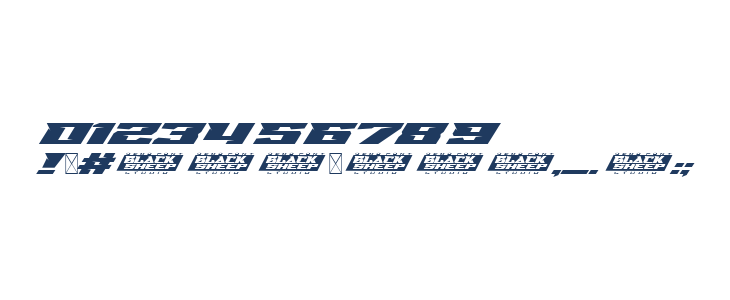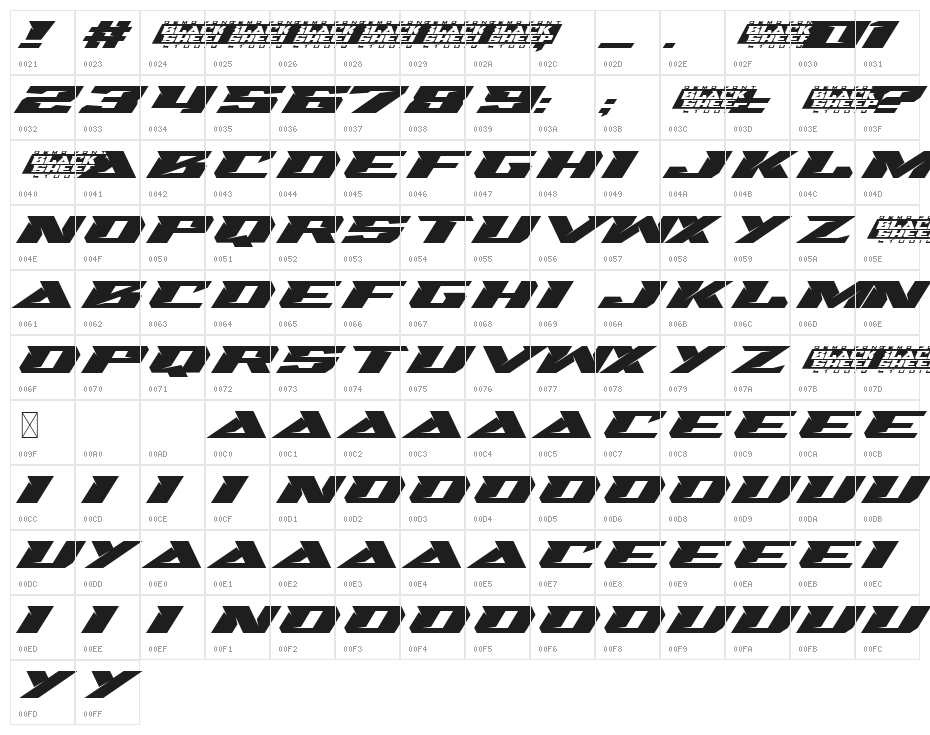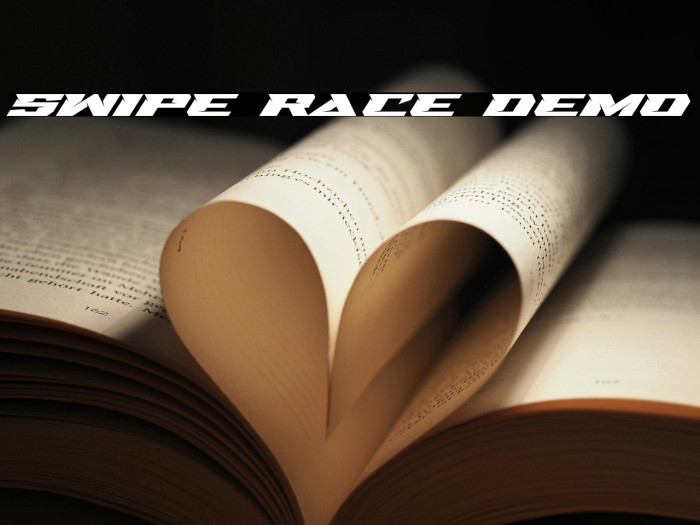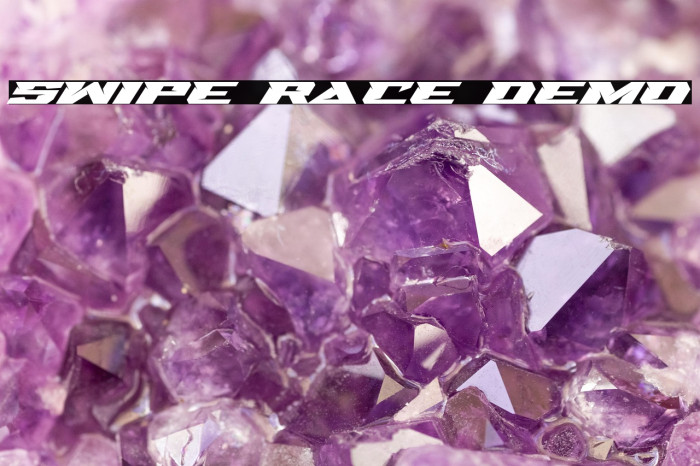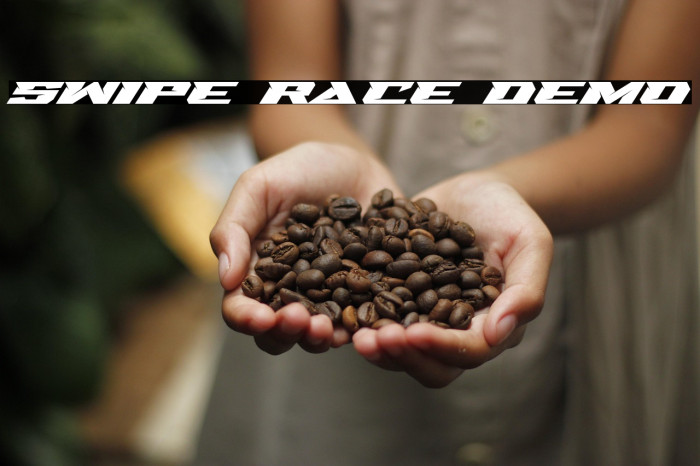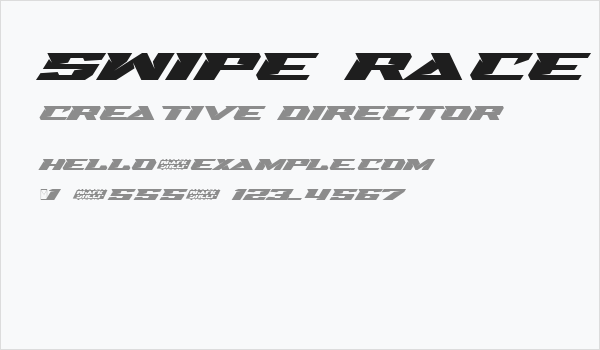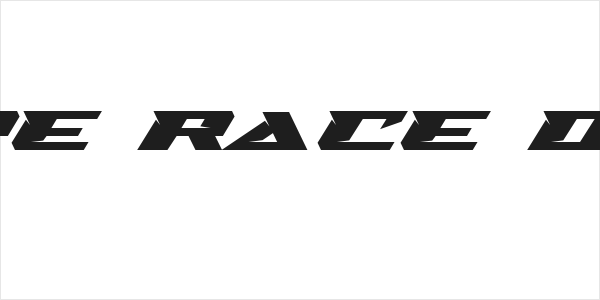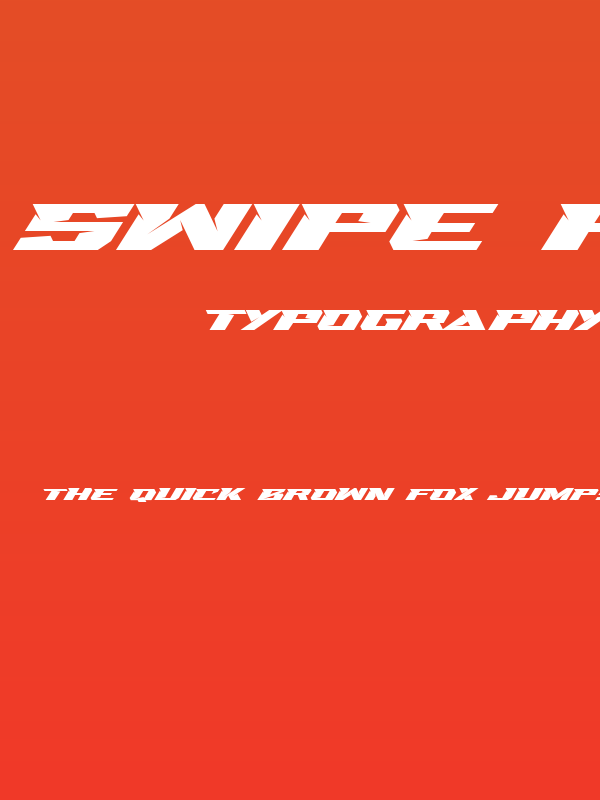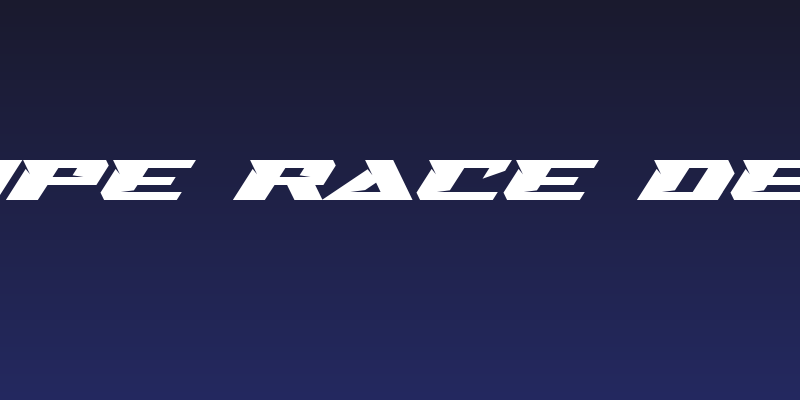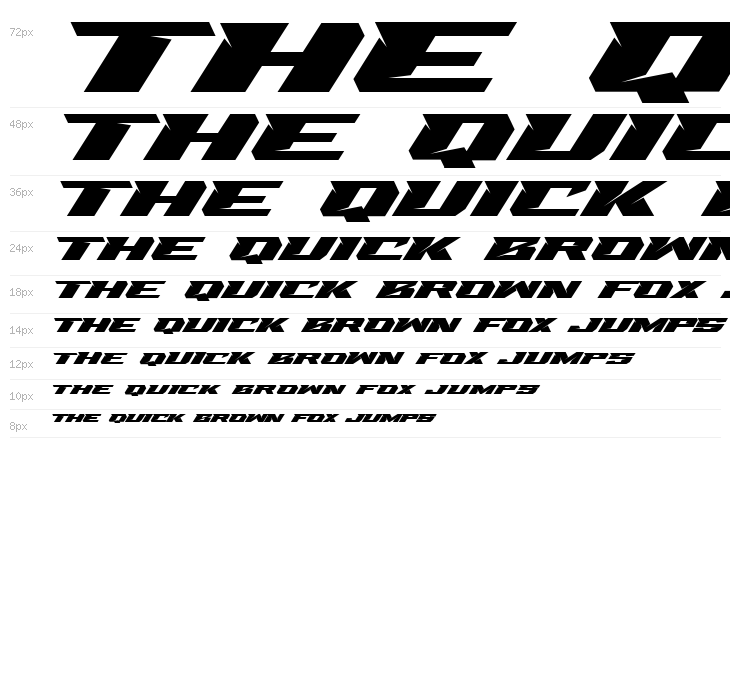
Swipe Race Demo Font
Swipe Race Demo Description
This font features a bold, angular design with a strong emphasis on sharp edges and dynamic lines, reminiscent of speed and movement. The uppercase and lowercase letters maintain a consistent style, with each character exhibiting a slanted, italicized form that enhances the sense of motion. The numbers and special characters follow the same aesthetic, ensuring uniformity across all elements. The font's aggressive and modern appearance makes it ideal for projects that require a sense of energy and action, such as racing-themed designs or sports branding.
| Proposed Projects | Perfect for racing-themed graphics, sports branding, dynamic posters, and video game titles. |